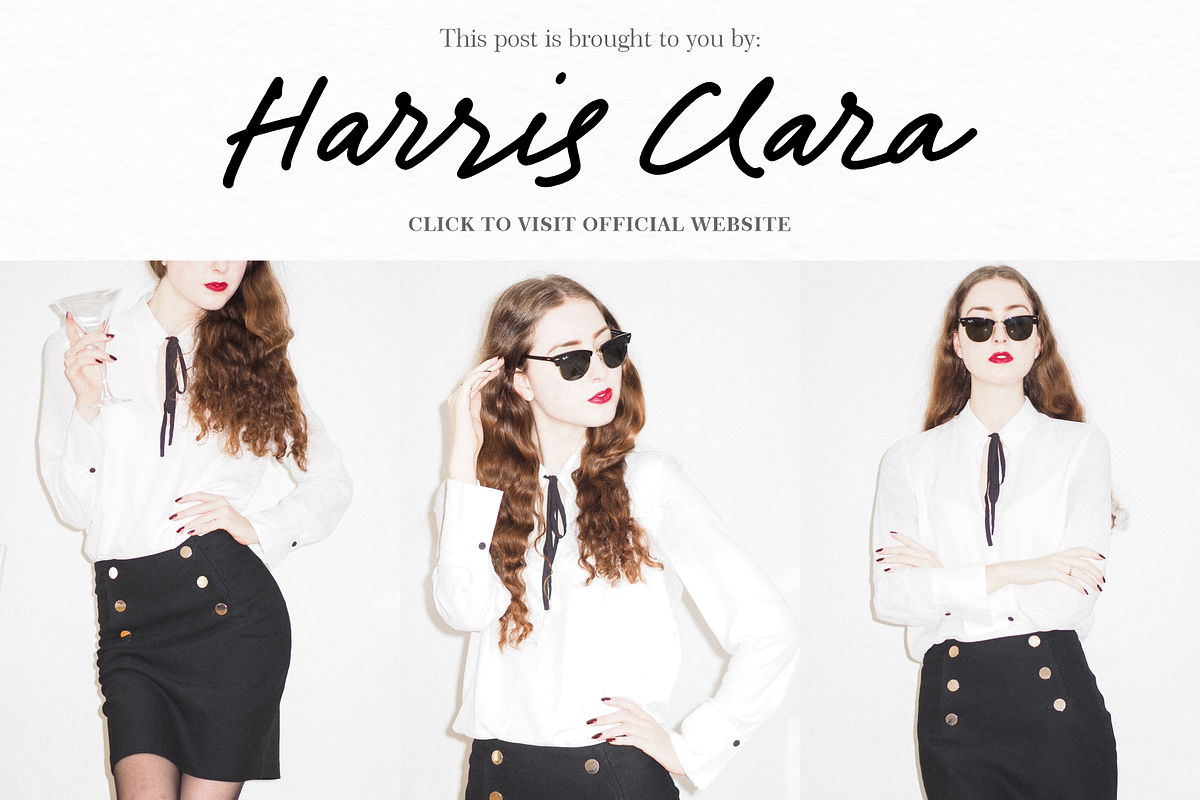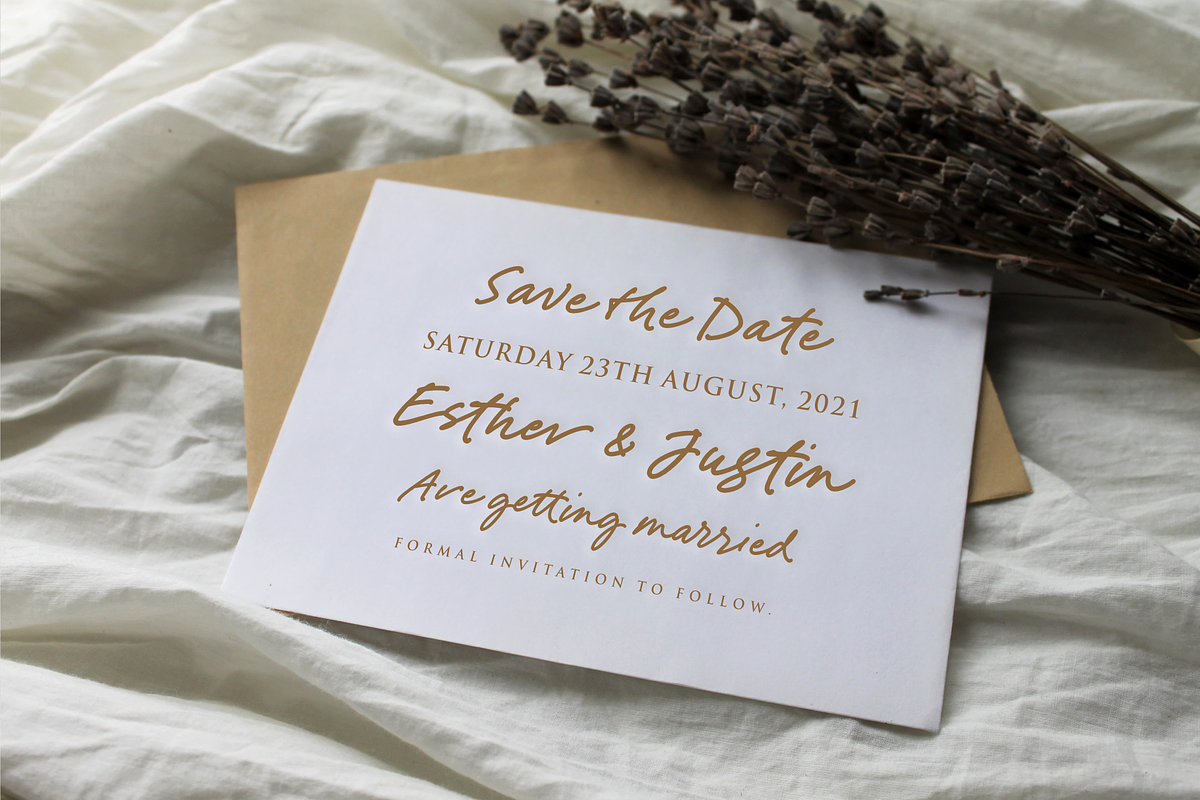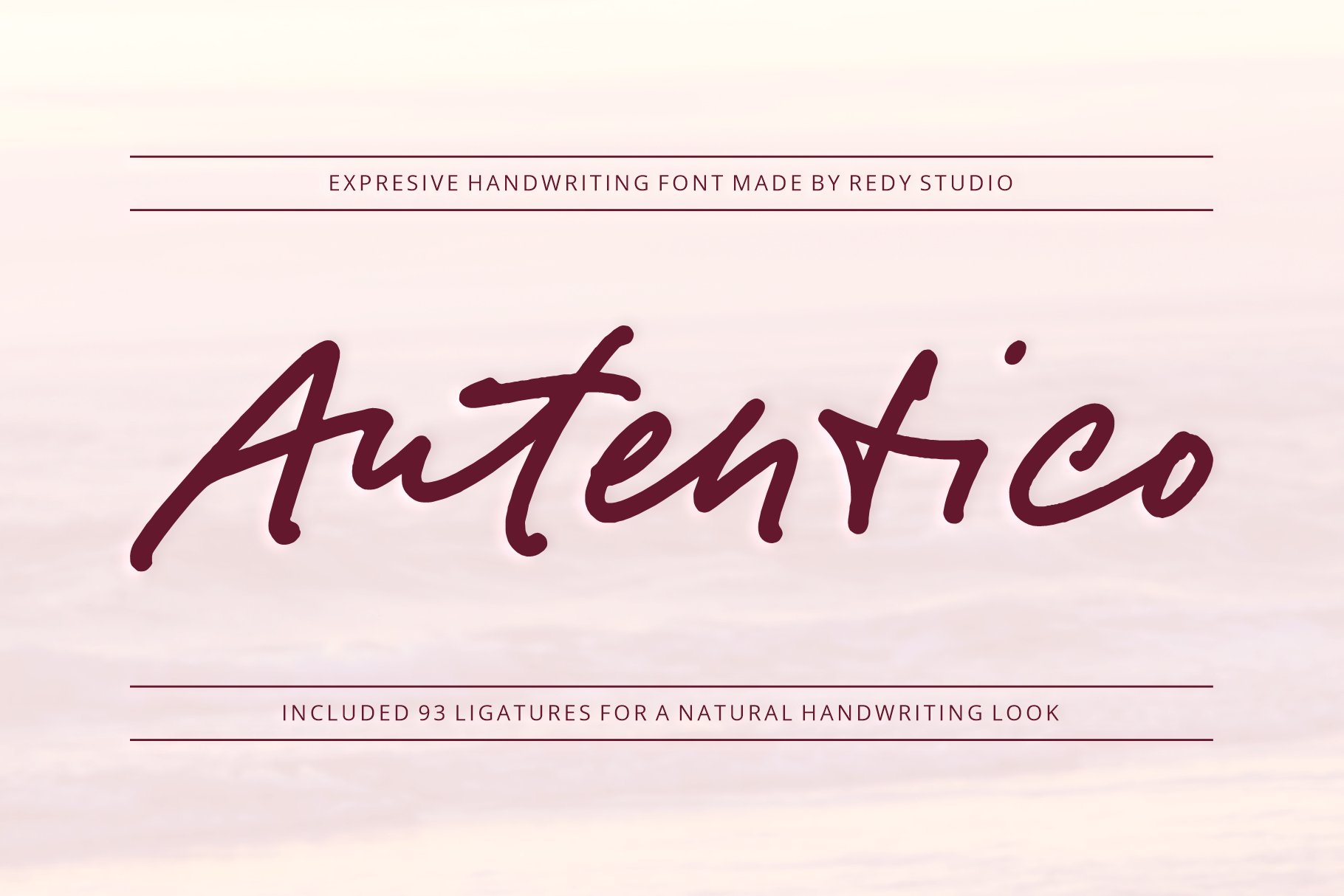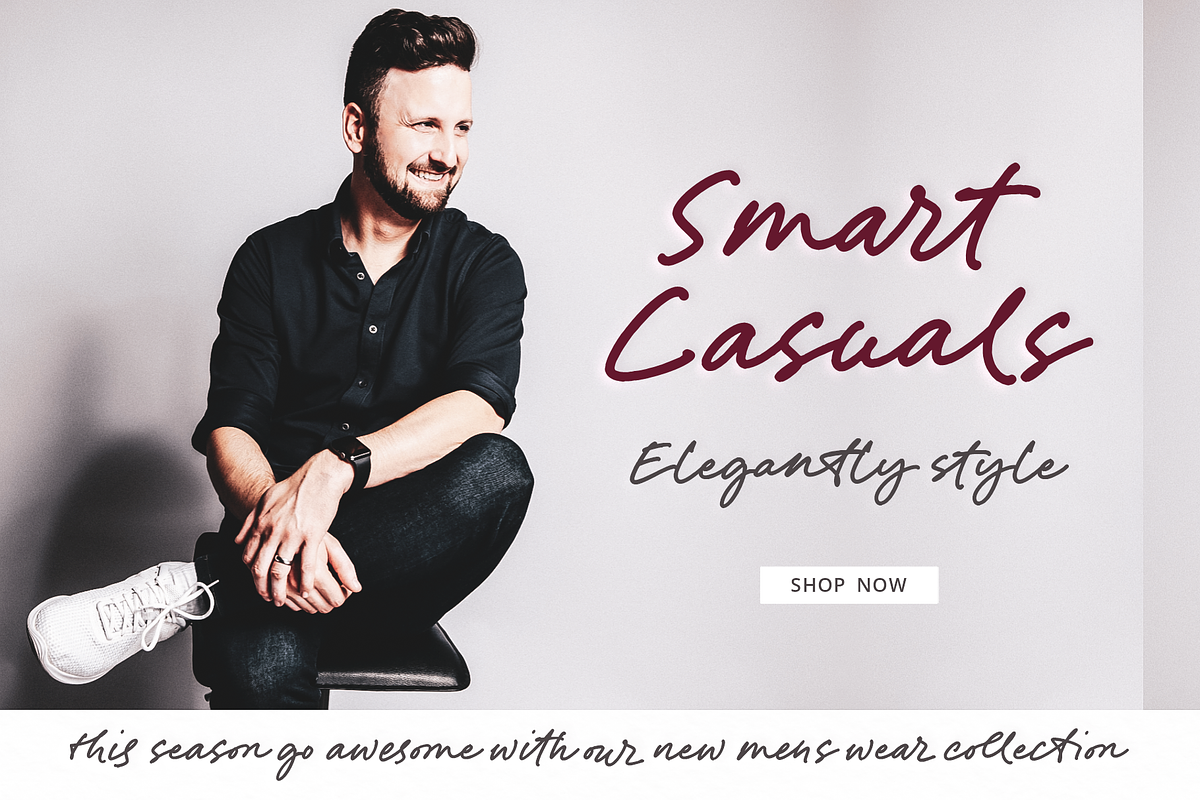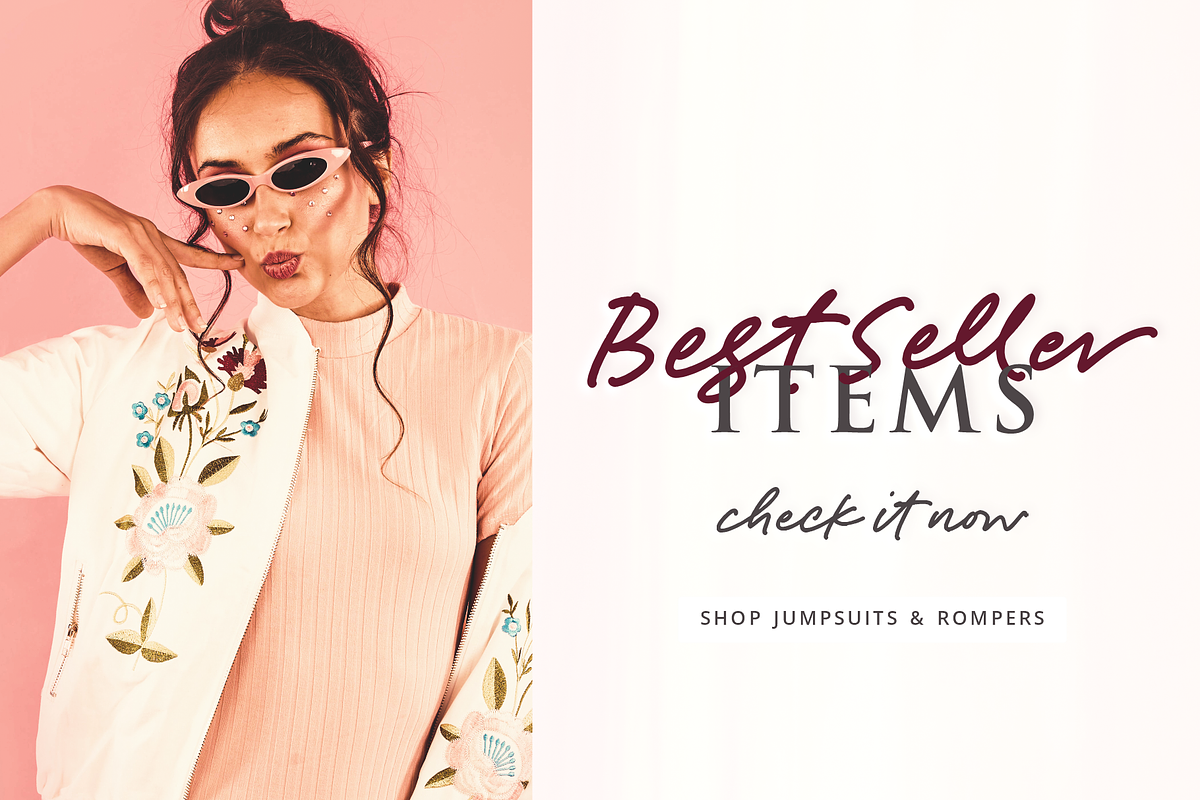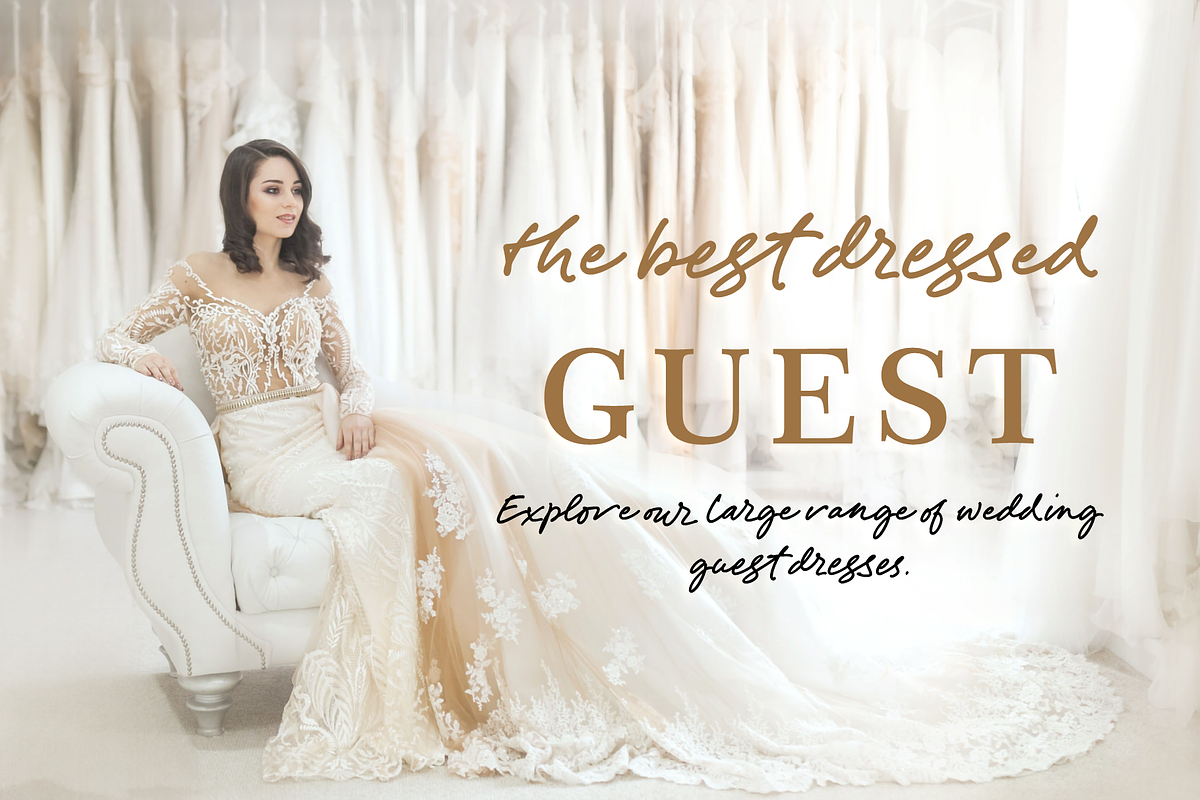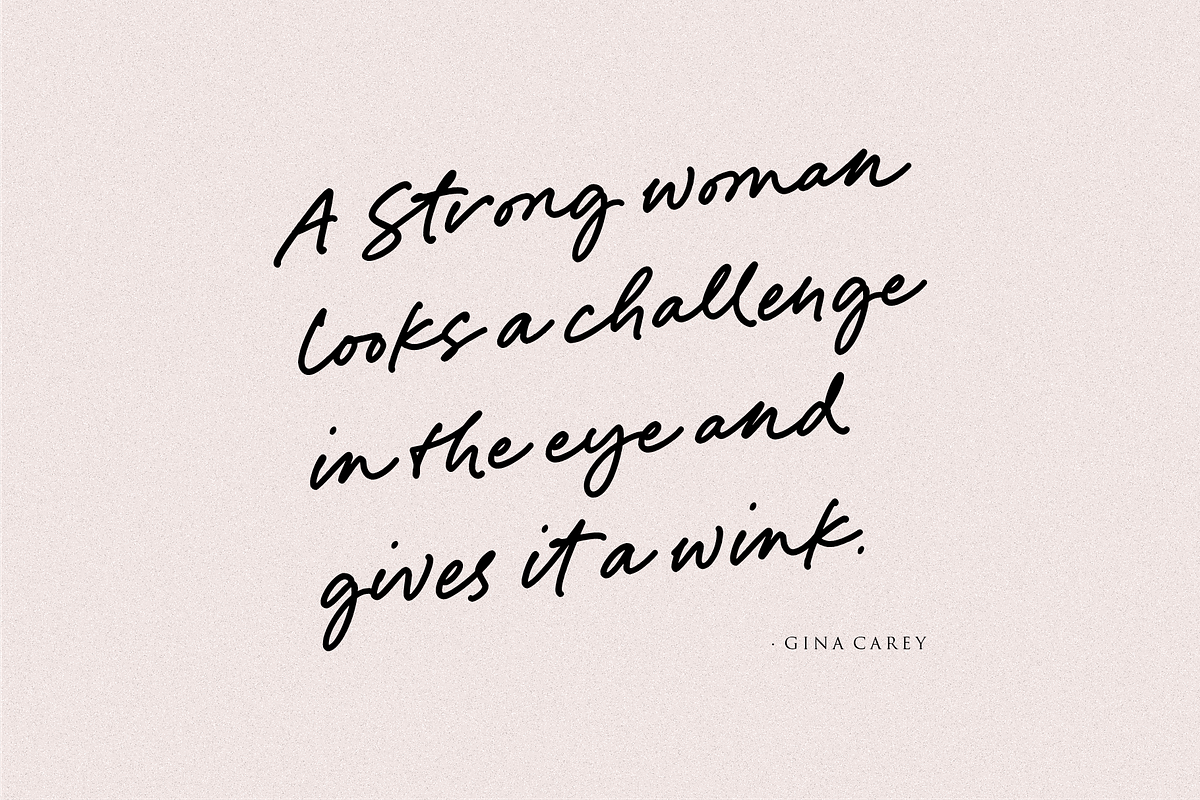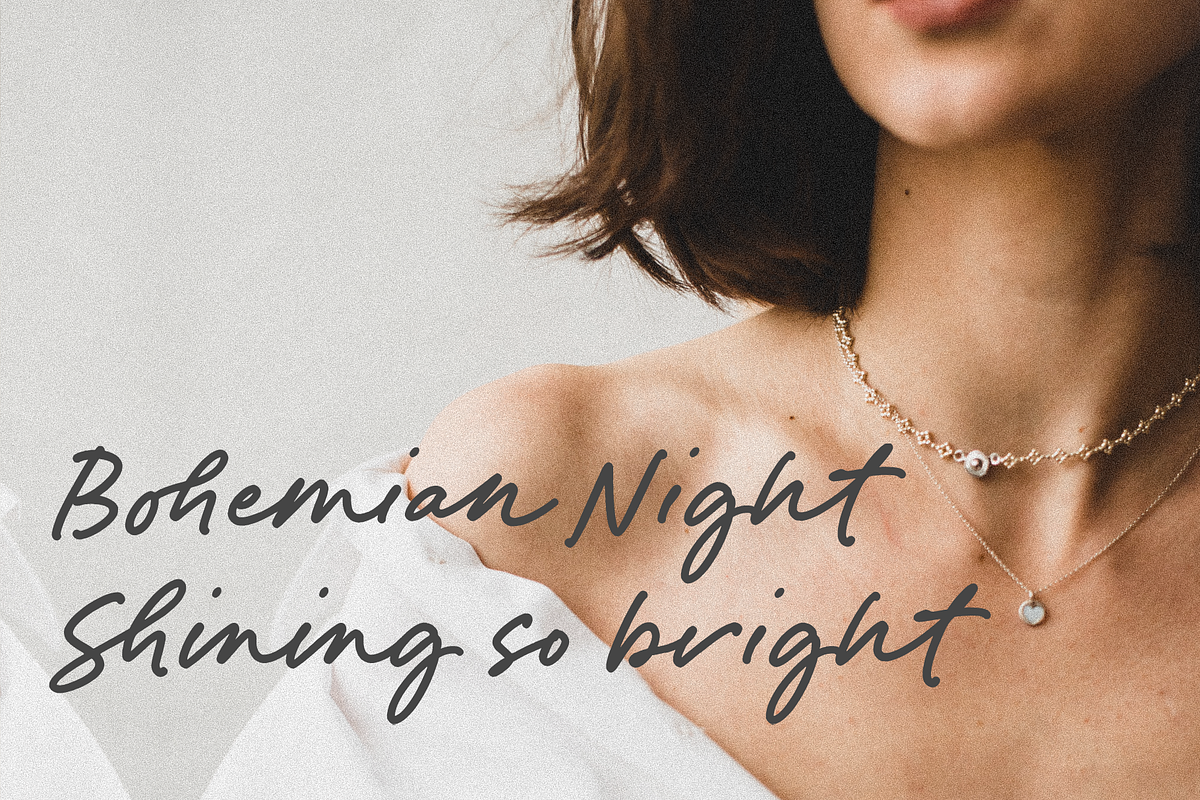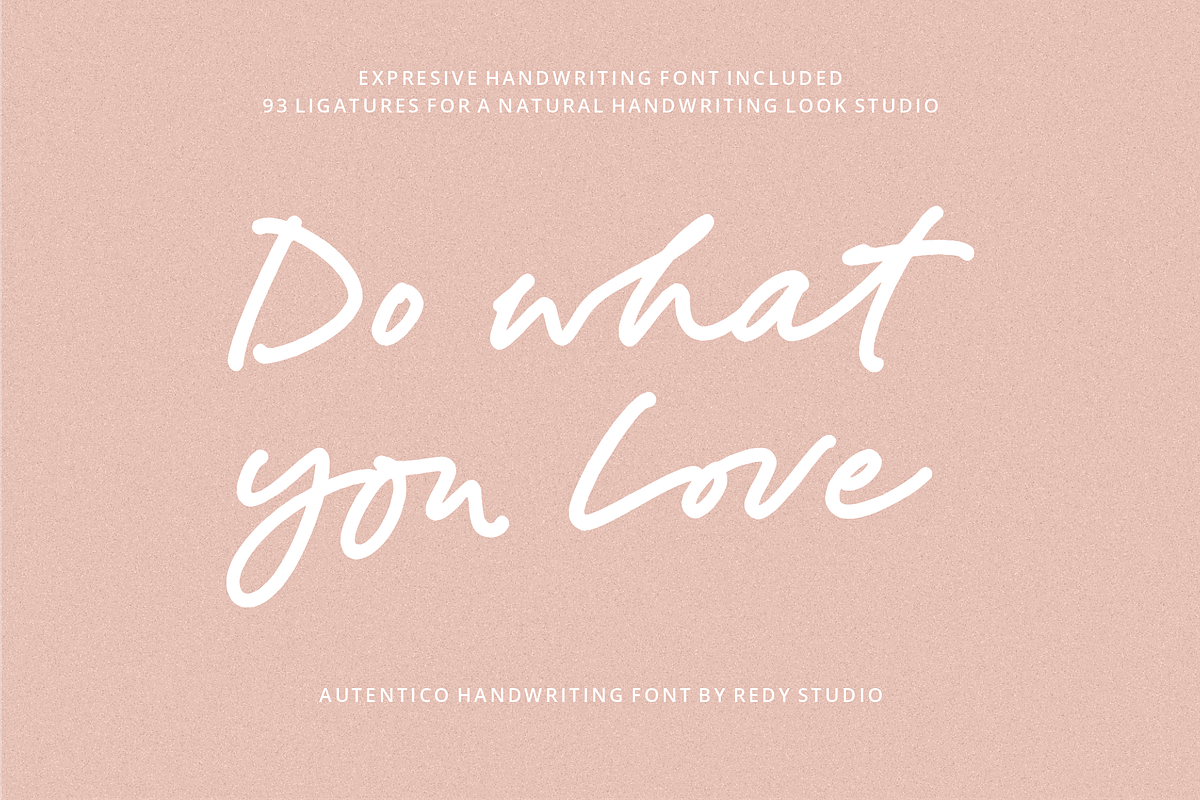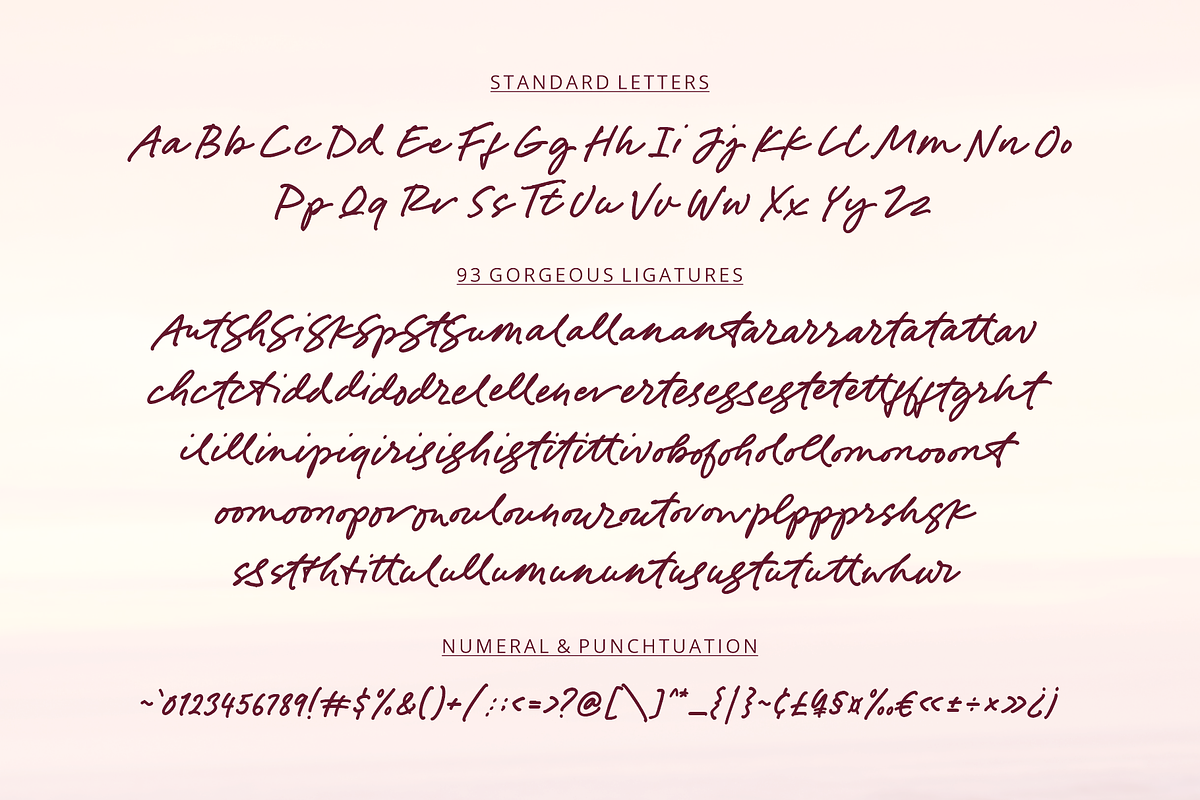
Autentico Realistic Handwriting Font
Beautiful and sexy handwriting types. You will love the look of this font. Autentico font was inspired by modern calligraphy, but with a more crushed look, making it perfect for wedding invites, greeting cards, or logos. Use the upper case letters to add elegance to images or give your design some style. We included a full set of lower and upper case letters, numbers, punctuation marks, and 93 ligatures to take your design to the next level.
Authentico features:
- A full set of upper & lowercase characters
- 93 Gorgeous ligatures
- Alternates in lowercase
- Multilingual symbols